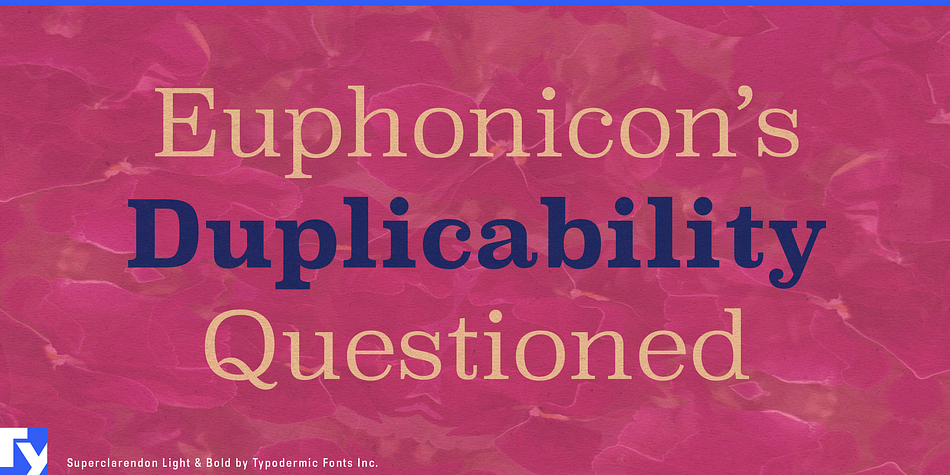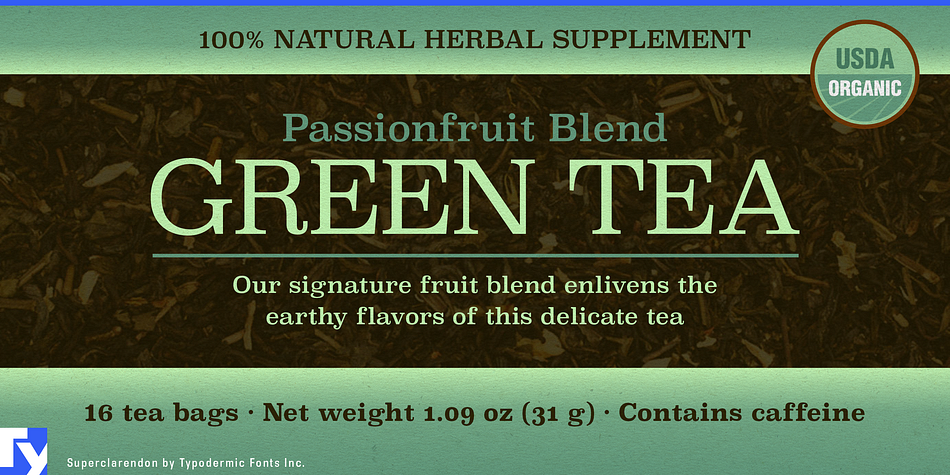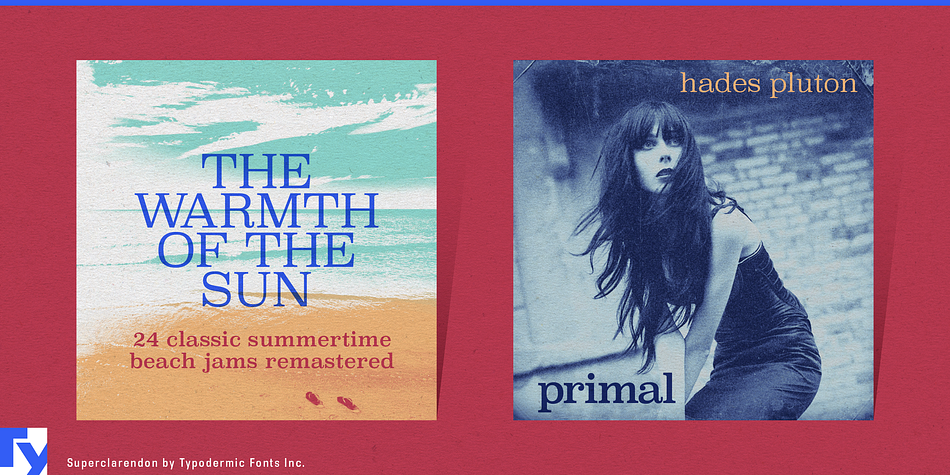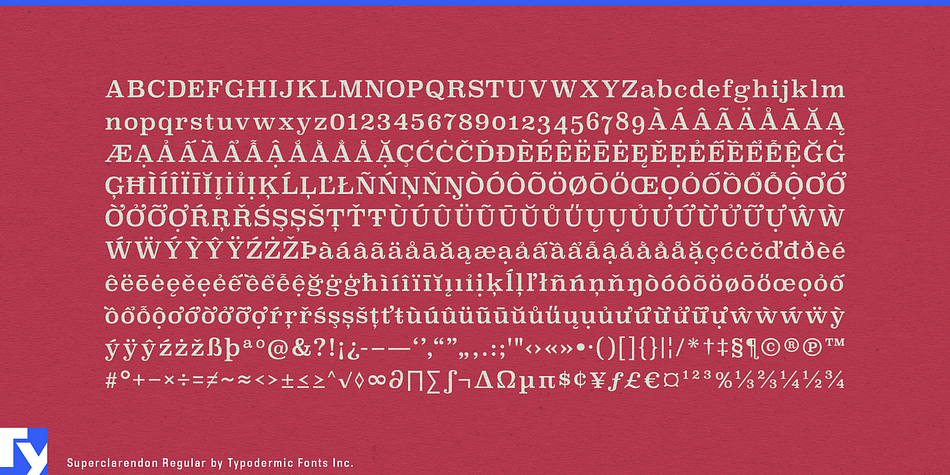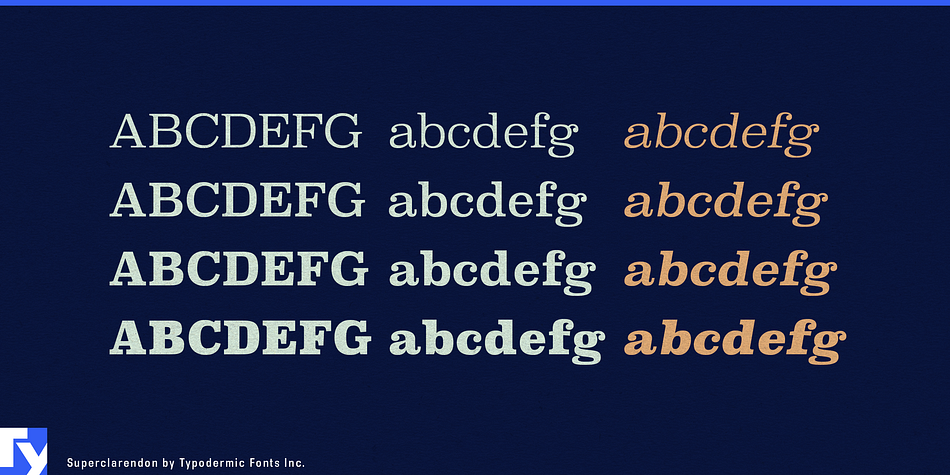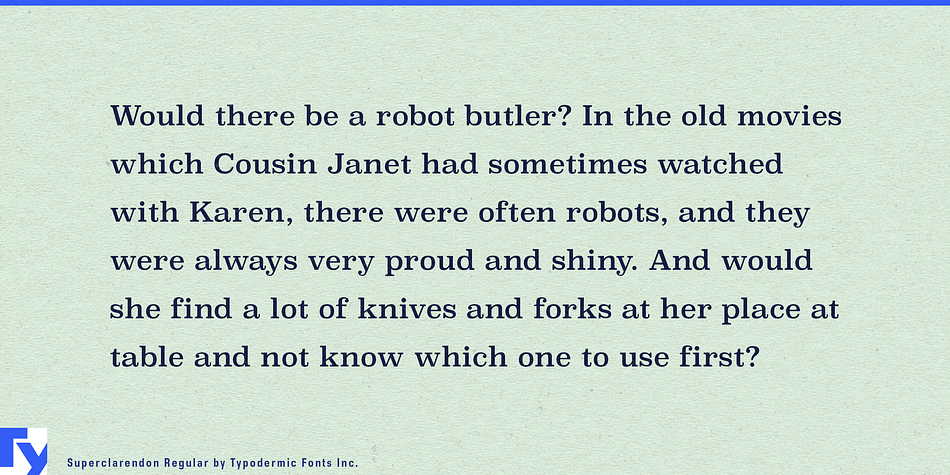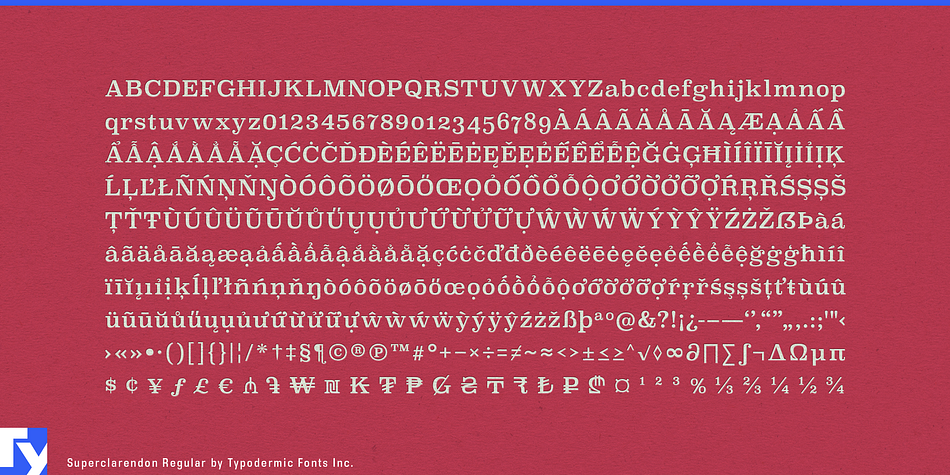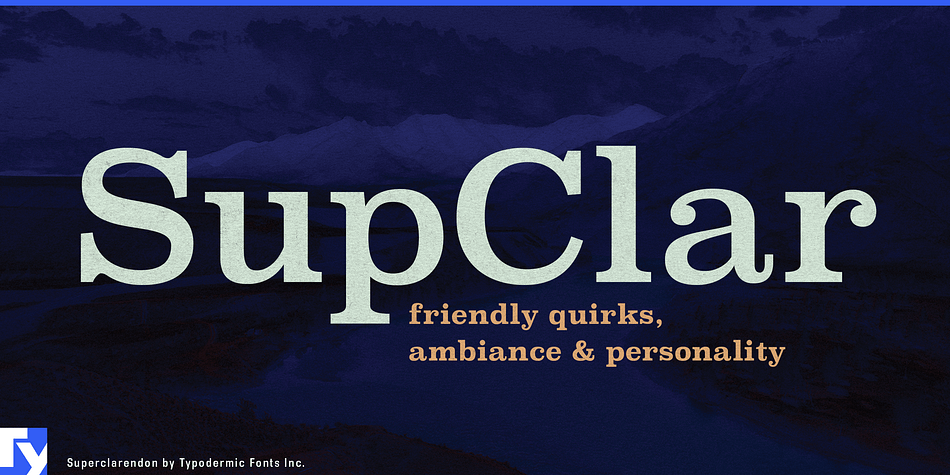
Super Clarendon is a slab serif font family. This typeface has eight styles and was published by Typodermic Fonts Inc.
Superclarendon is an homage to the original 19th Century Clarendon typeface. Rather than a pared-down, minimalist interpretation, Superclarendon goes in the opposite direction. Design ideas were harvested from all around the 1800’s to season Superclarendon with friendly ambiance and personality. The Superclarendon family includes 4 weights, italics & old-style numerals.